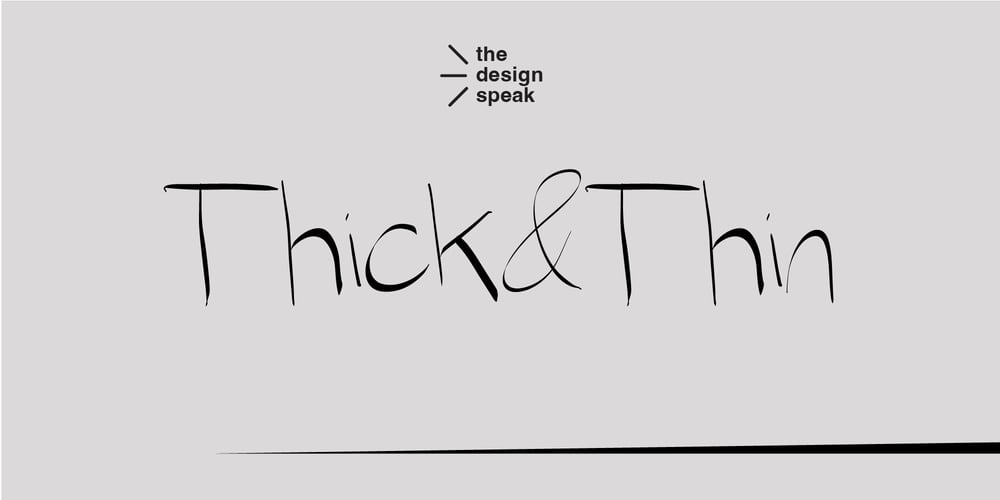
Thick and Thin Font Family was designed by Edward Marshall and published by The Design Speak. Thick and Thin contains 1 styles and family package options. Thick and Thin is a dynamic, pressure-sensitive handwritten typeface that exudes personality and versatility. With its bold contrasts between thick and thin strokes, it captures the organic flow of pen-on-paper, creating a sense of movement and energy. Perfect for projects that require a human touch, this typeface balances bold expressiveness with refined elegance.Whether you’re designing for branding, posters, or editorial layouts, Thick and Thin brings an artisanal feel that’s both approachable and stylish. Use it to make your work stand out with a touch of handwritten charm.